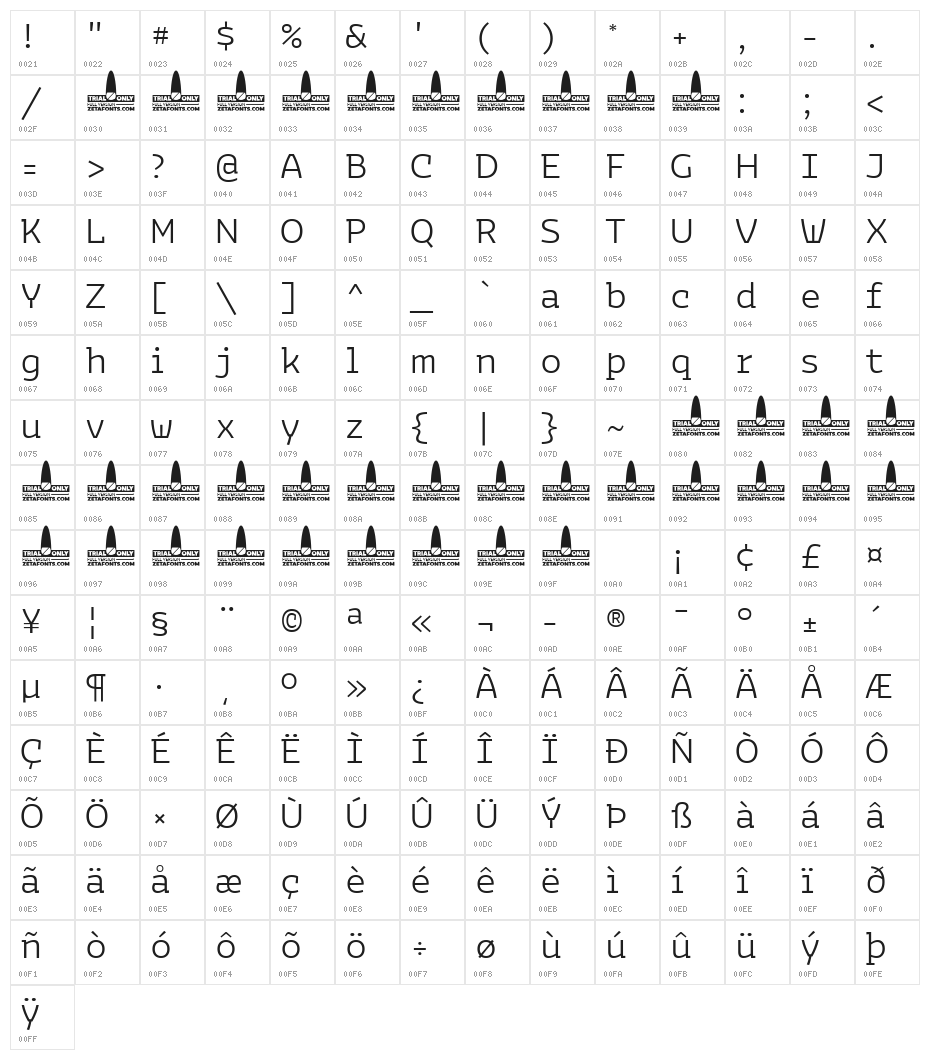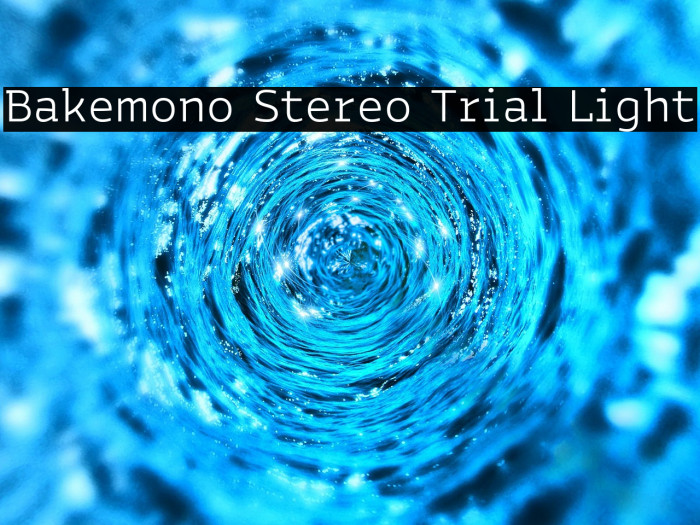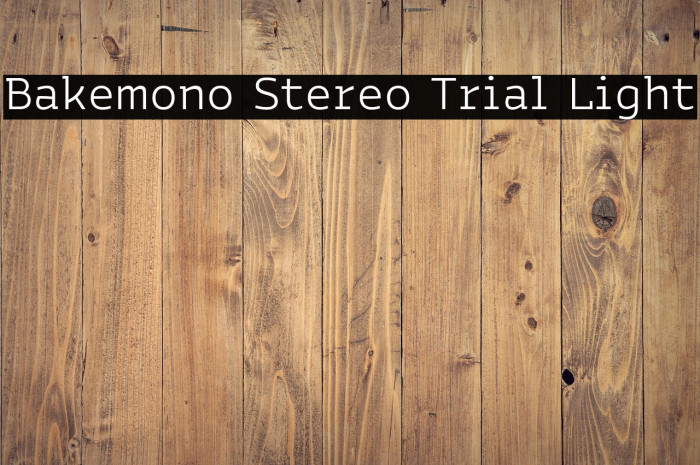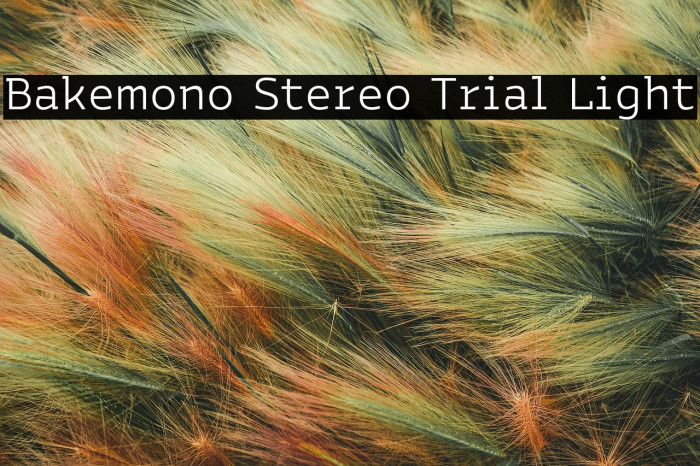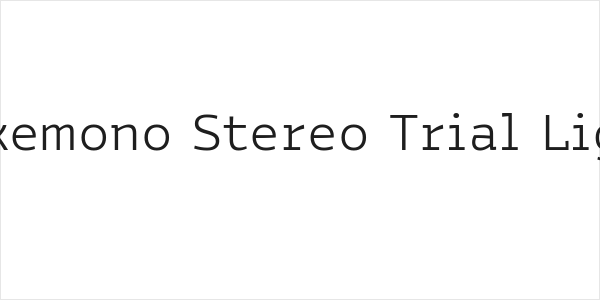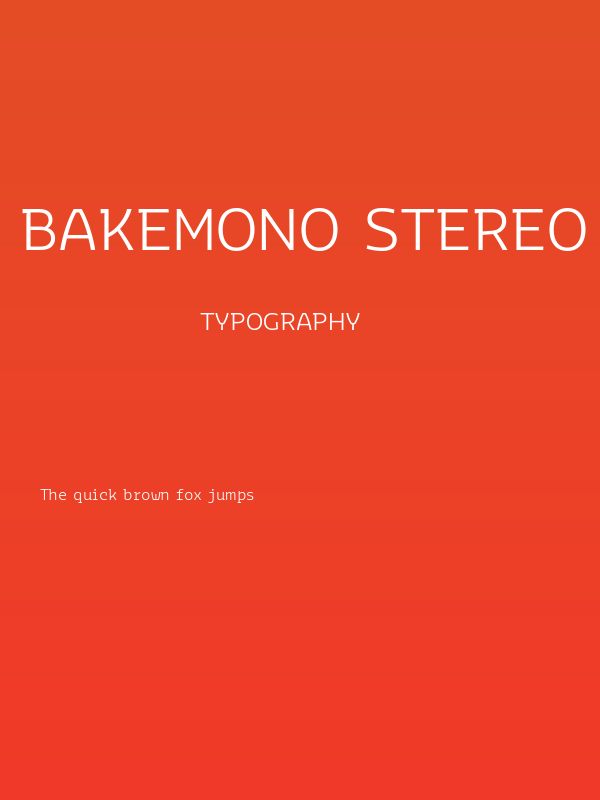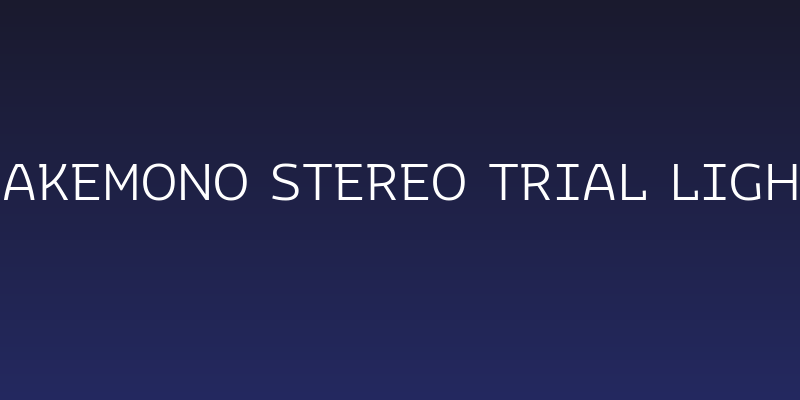
Bakemono Stereo Trial Light Font
Bakemono Stereo Trial Light Description
This font features a clean and modern design with a monospaced style, characterized by uniform character width. The letters are simple and geometric, providing a clear and legible appearance. The uppercase and lowercase characters maintain consistent proportions, while the numerals and special characters align seamlessly with the overall aesthetic. The font's minimalistic approach makes it versatile for various applications, offering a straightforward yet distinctive look.
| Use Case | Coding, Technical documents, Minimalist designs |
| Proposed Projects | Ideal for coding environments, technical documents, and minimalist design projects. |